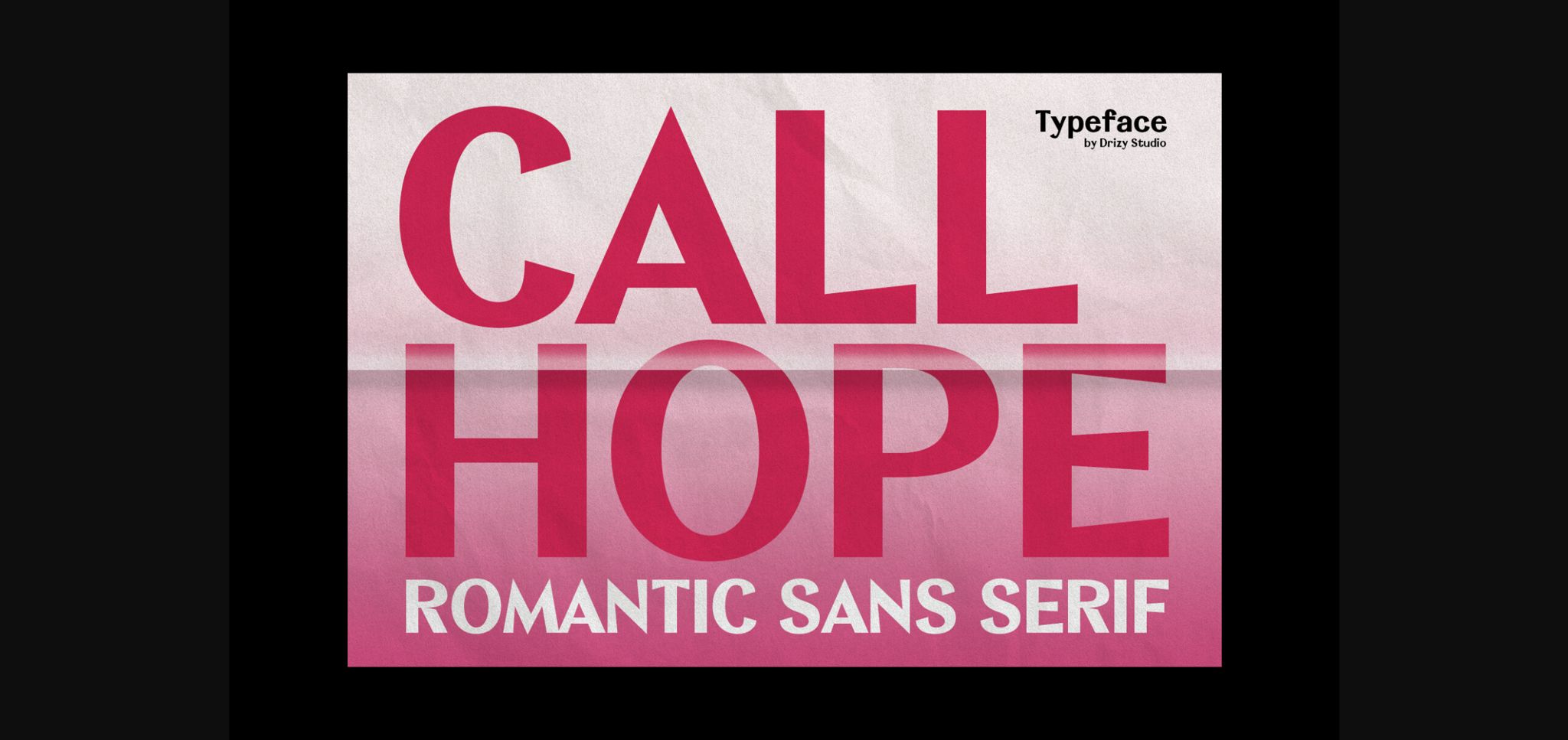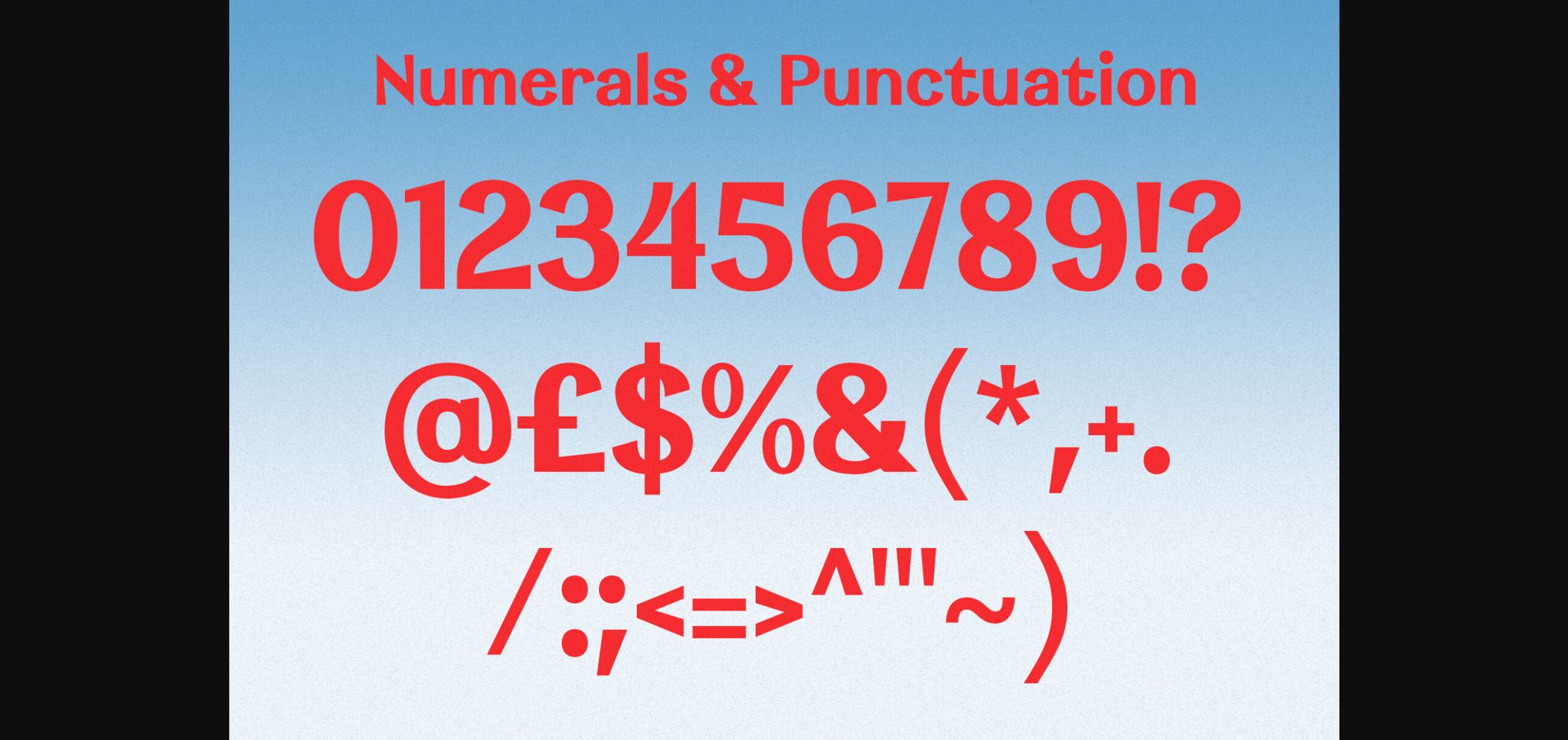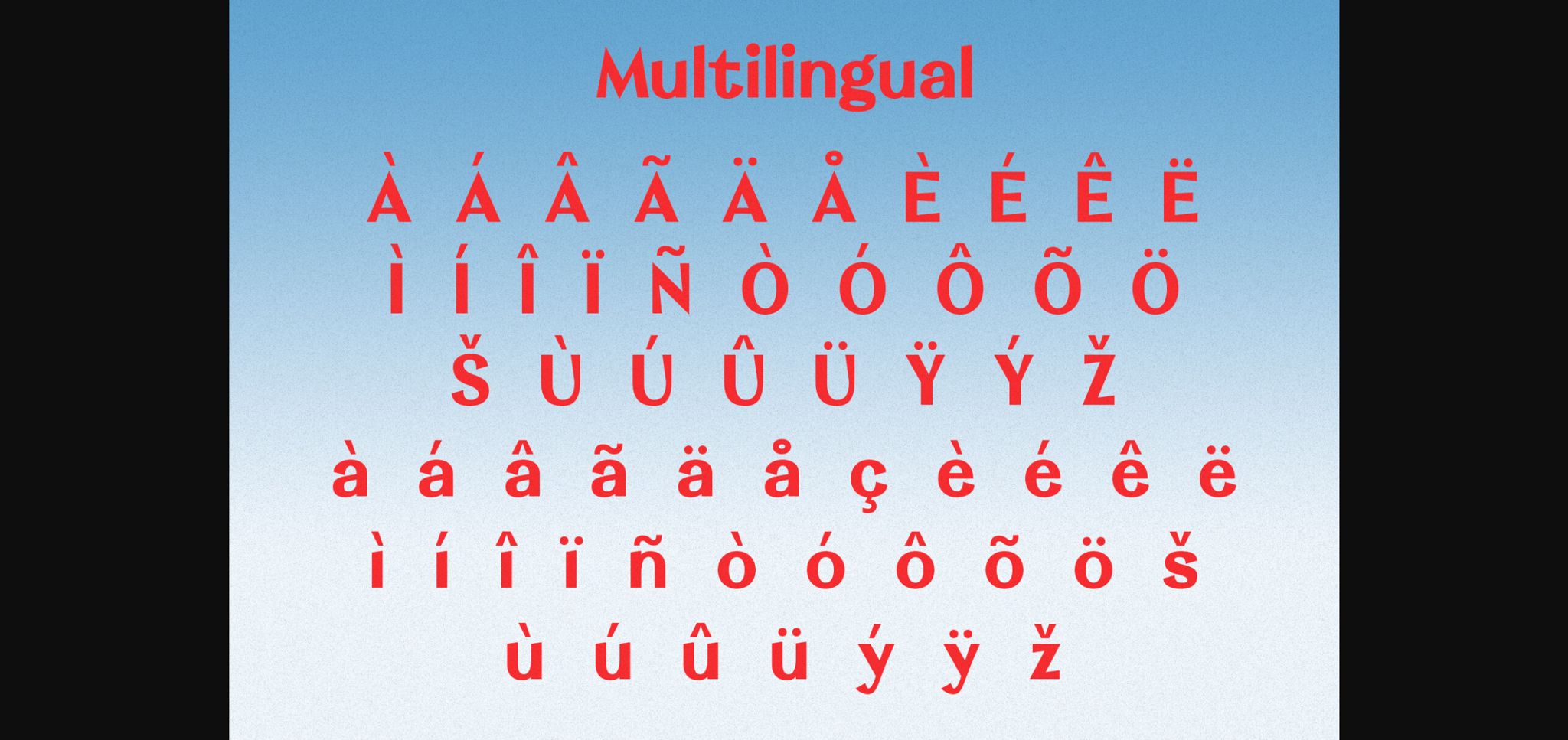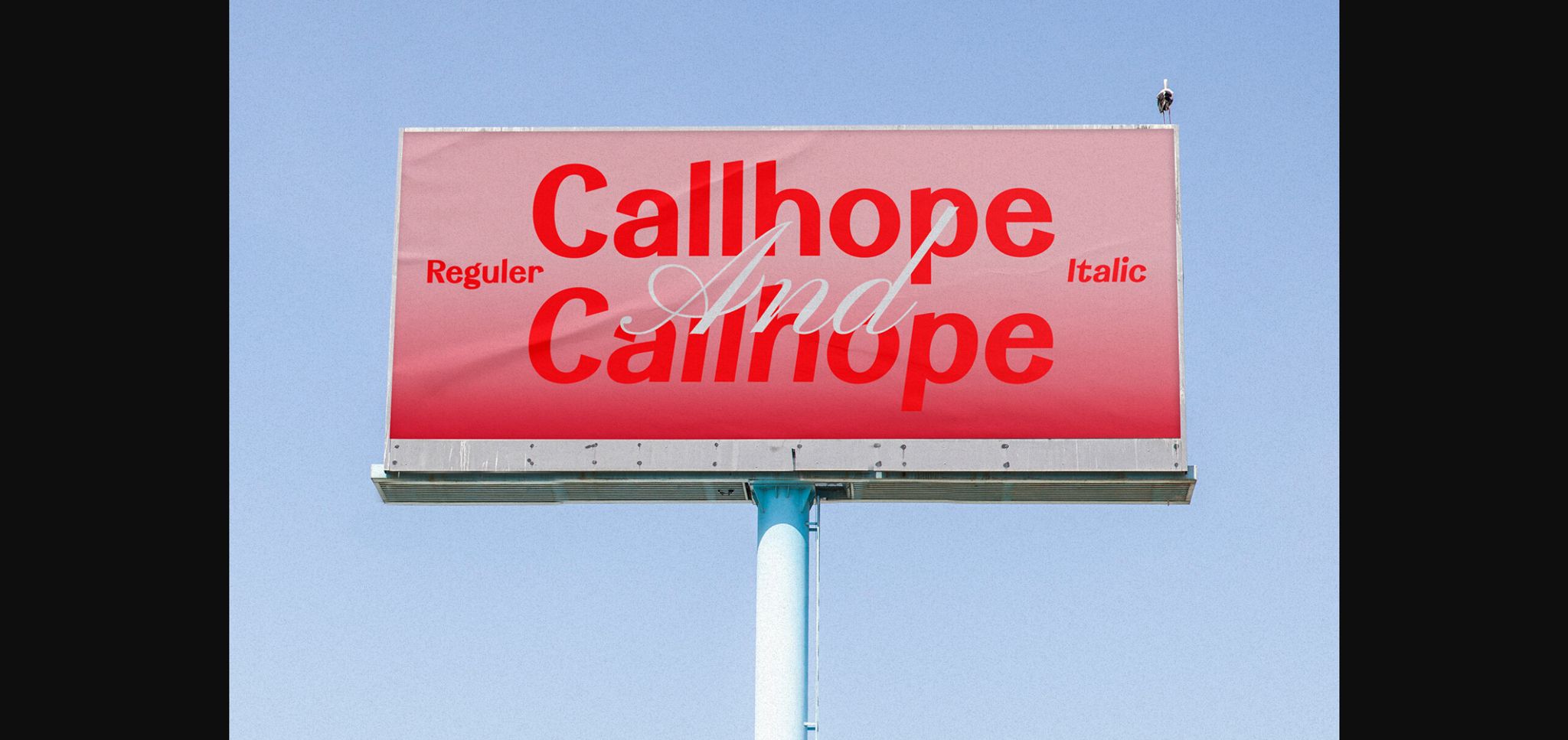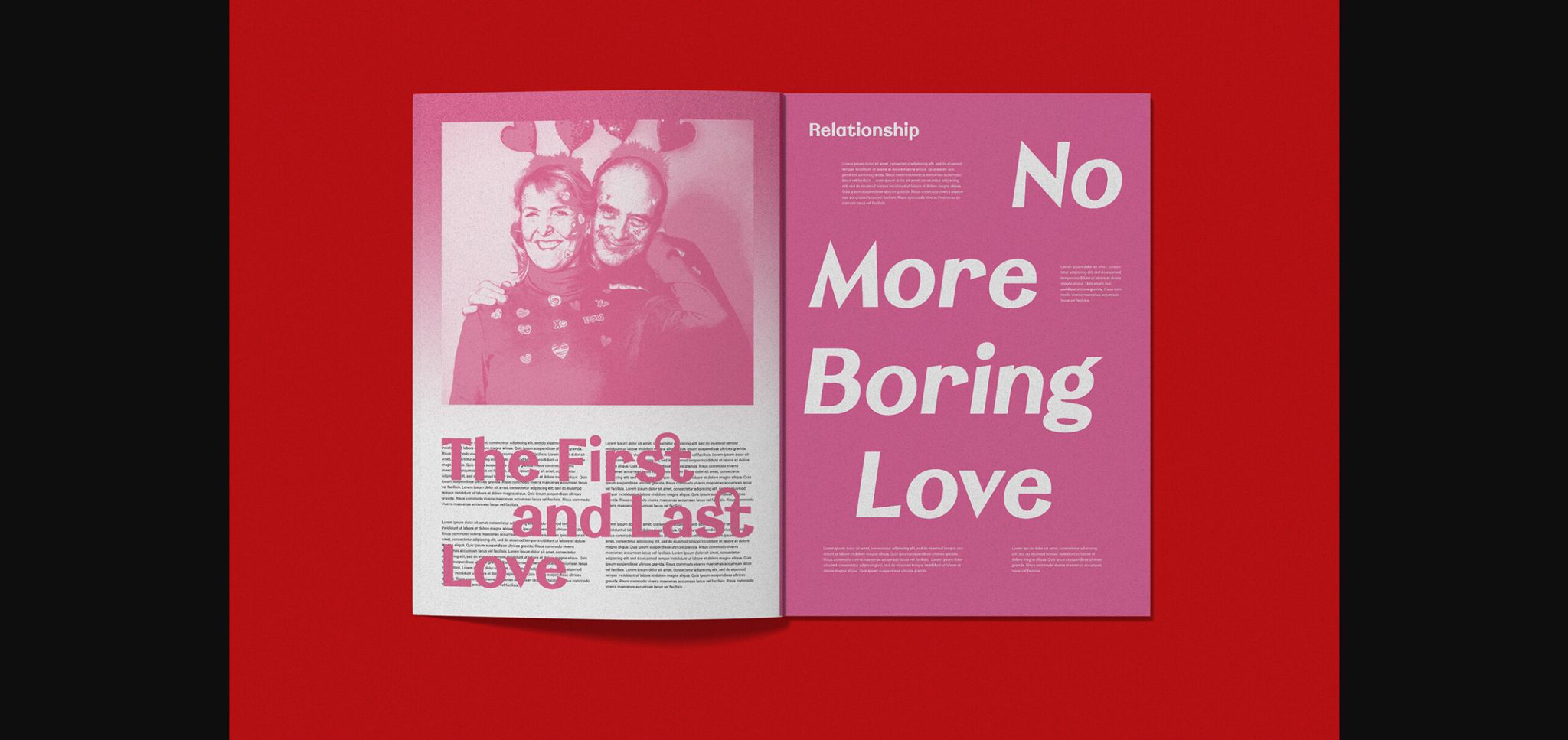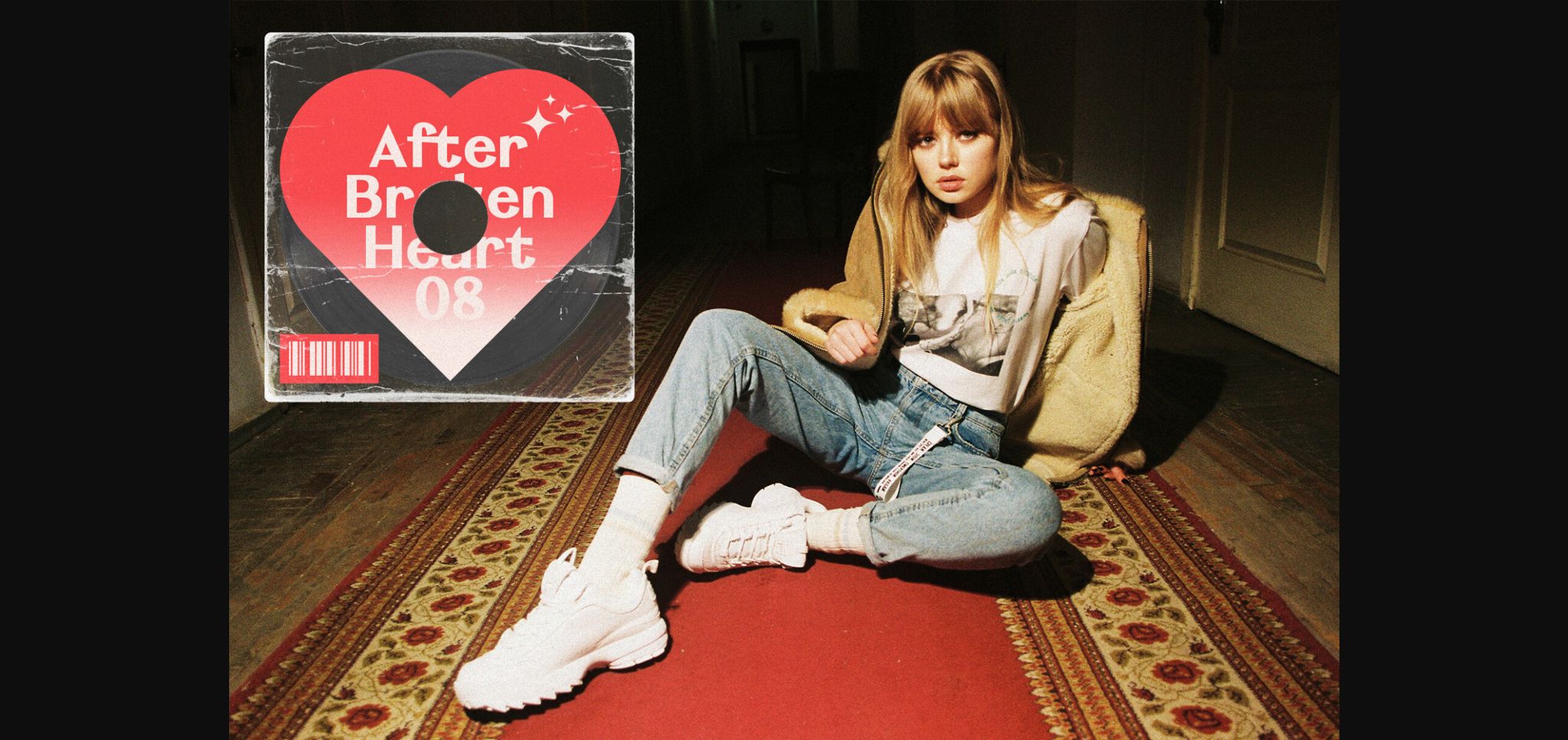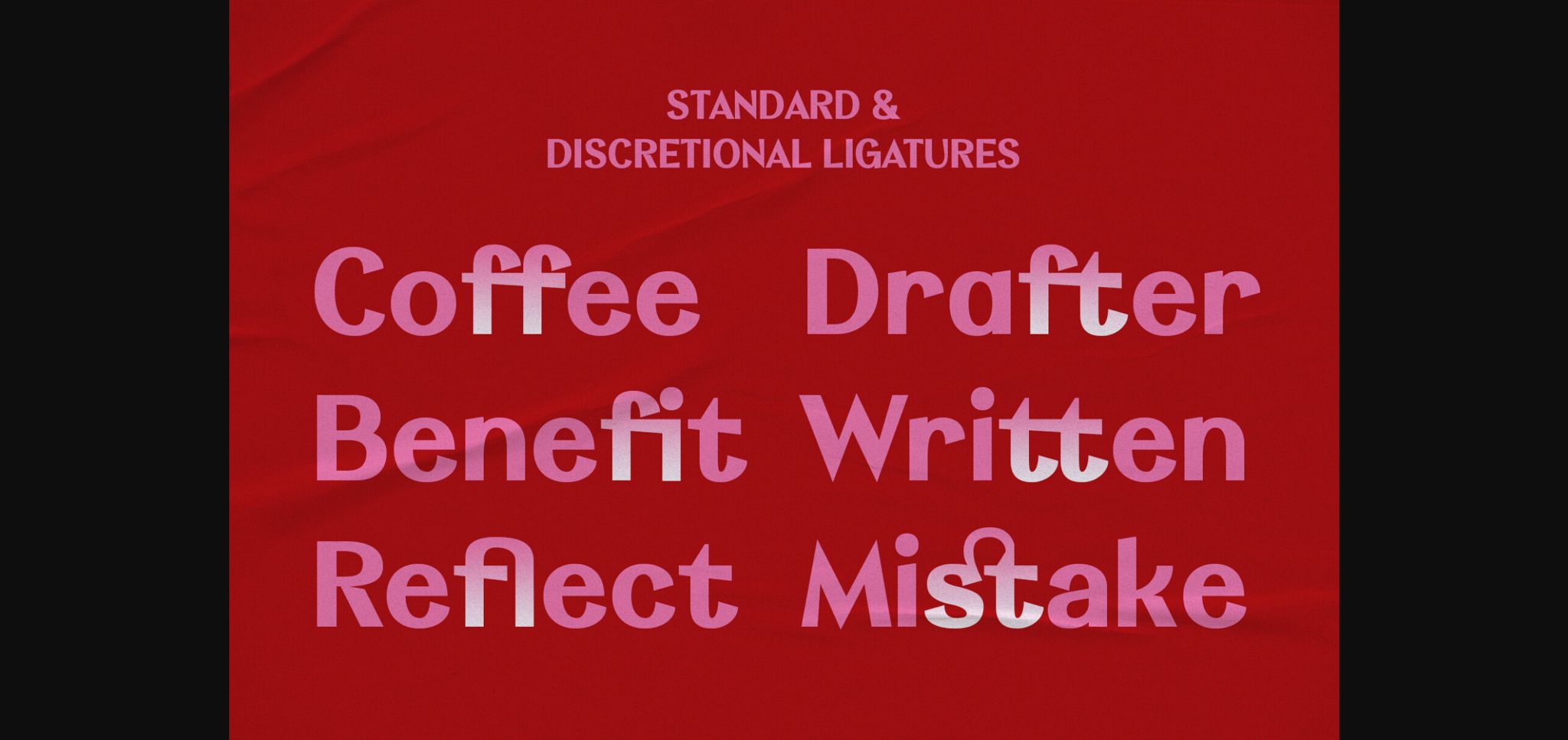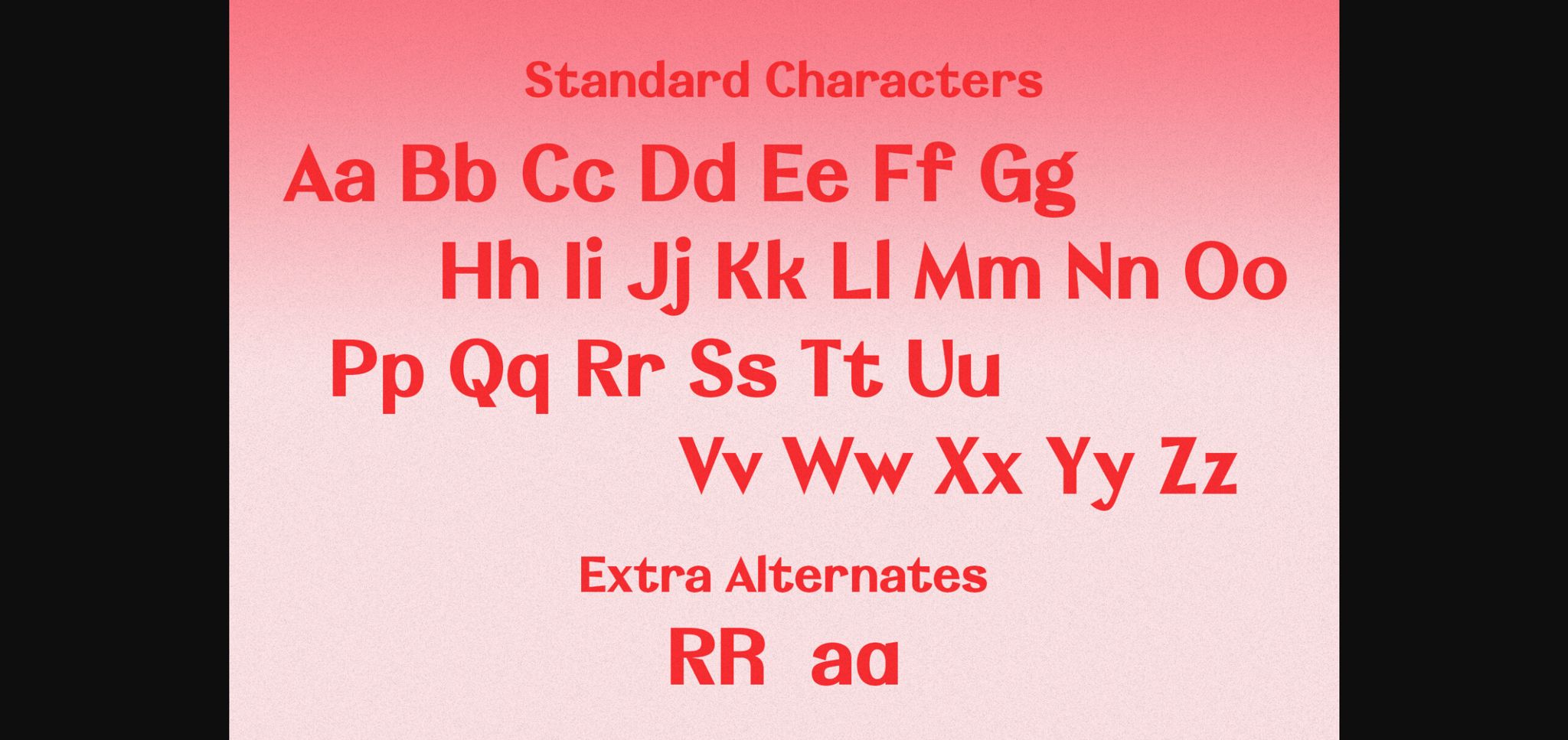
About Callhope Font
Callhope – Romantic Sans Serif Font
Elevate your designs with the enchanting allure of Callhope, a meticulously crafted sans serif font designed to infuse romance into your visual creations. Whether you’re working on wedding invitations, love notes, or any project that demands a touch of sophistication, Callhope is the perfect typographic choice.